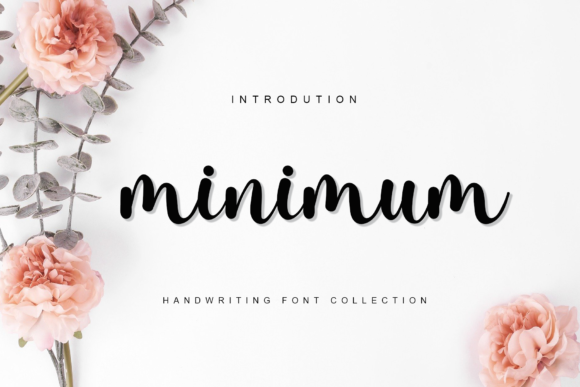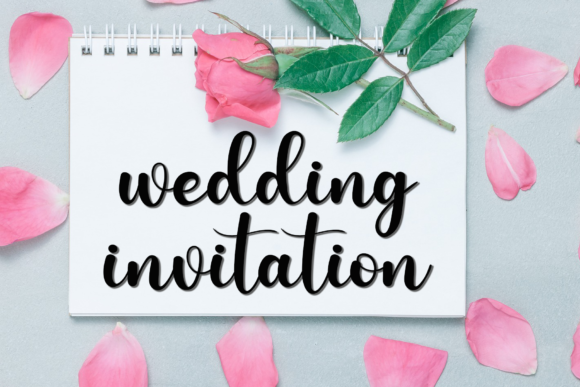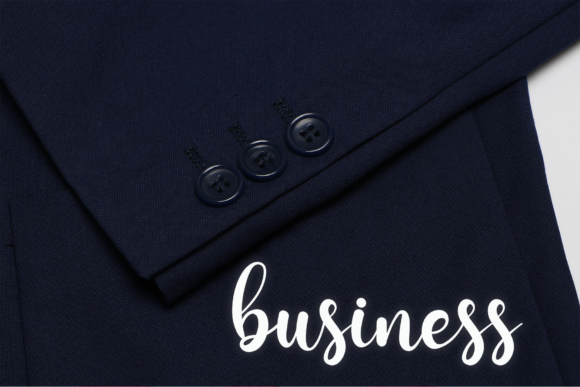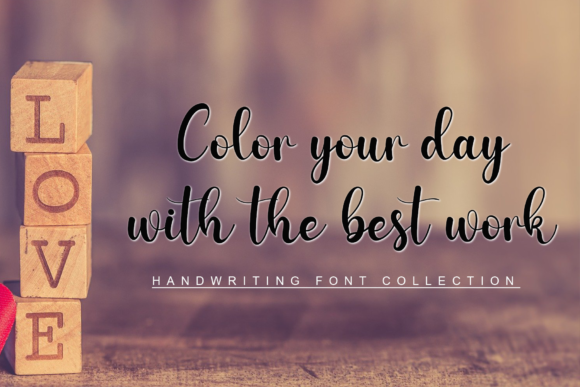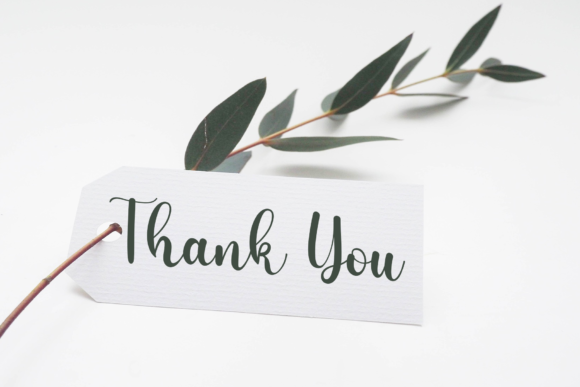
Minimum Font
About Minimum Font
Minimum is a sweet and cursive handwritten font. This gentle font will look gorgeous on a variety of design ideas. It will add a joyful and romantic touch to each of your projects!